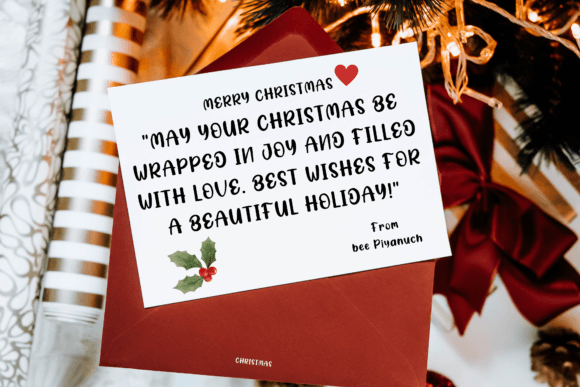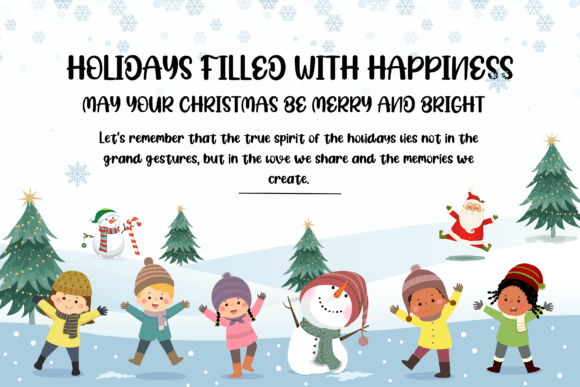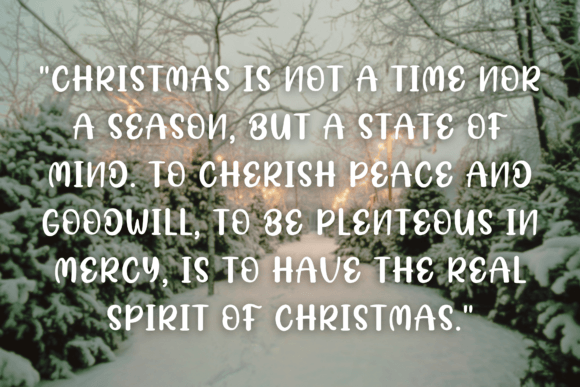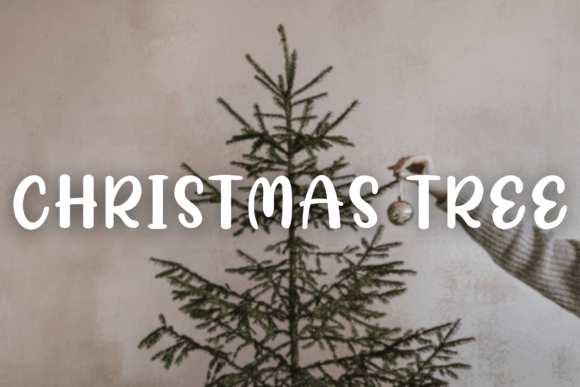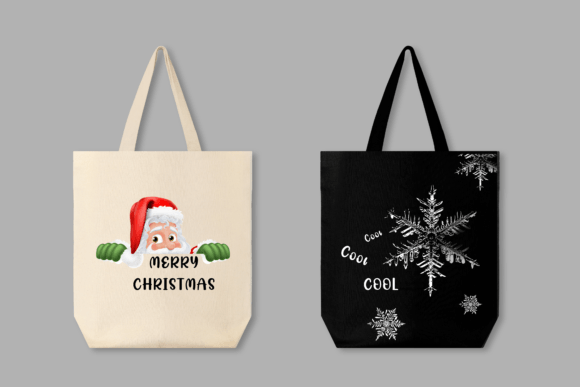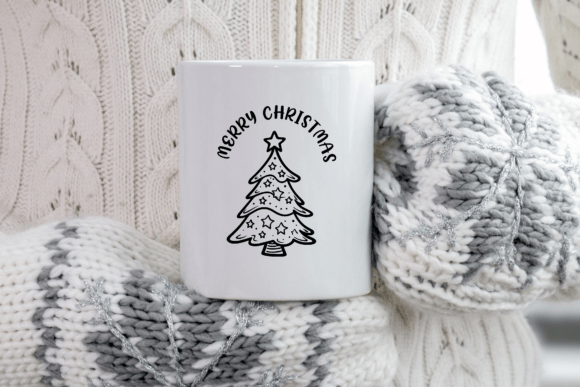
Christmas Day Font: A Festive Display Font for Your Holiday Designs
Are you looking for a font that captures the spirit of Christmas? Look no further than the Christmas Day Font! This beautiful display font is perfect for adding a touch of holiday cheer to your designs, from greeting cards to social media posts.
What is Christmas Day Font?
Christmas Day Font is a display font designed to evoke the magic of Christmas. Its unique and festive design makes it perfect for a variety of uses, from personal projects to commercial designs. The font is highly legible and can be used for a range of applications, including:
- Taking notes and writing diaries
- Creating greeting cards and invitations
- Designing banners and posters
- Adding text to mugs, cards, shirts, and other merchandise
- Crafting social media posts and blog content
Why Use Christmas Day Font?
There are many reasons to use Christmas Day Font in your designs. Here are just a few:
- Unique and festive design: Christmas Day Font has a unique and festive design that will add a touch of holiday cheer to your designs.
- Highly legible: The font is highly legible, making it perfect for use in a variety of applications, from small text to large displays.
- Versatile: Christmas Day Font can be used for a range of applications, from personal projects to commercial designs.
- Easily customizable: The font can be easily customized to fit your design needs, from changing the color to adjusting the size.
How to Use Christmas Day Font
Using Christmas Day Font is easy! Here are a few tips to get you started:
- Pair with other fonts: Christmas Day Font can be paired with other fonts to create a unique and eye-catching design.
- Use in combination with images: The font can be used in combination with images to create a festive and engaging design.
- Experiment with colors: Christmas Day Font can be used with a range of colors to create a unique and festive design.
Design Ideas Using Christmas Day Font
- Christmas greeting cards: Use Christmas Day Font to create beautiful and festive greeting cards for your loved ones.
- Holiday social media posts: Use the font to create engaging and festive social media posts that will stand out from the crowd.
- Christmas banners and posters: Use Christmas Day Font to create eye-catching banners and posters that will add a touch of holiday cheer to any room.
- Custom mugs and cards: Use the font to create custom mugs and cards that make perfect gifts for friends and family.